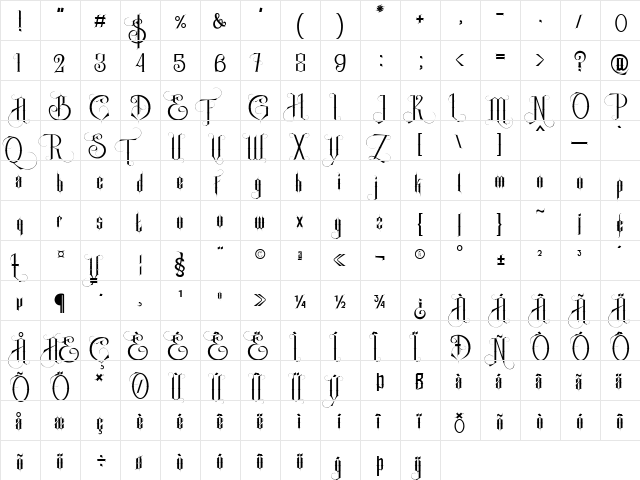
SingleGhost regular Regular
Design Context for SingleGhost regular Typeface
SingleGhost regular is a composed and adaptable typeface that performs quietly and consistently across a wide range of design contexts.